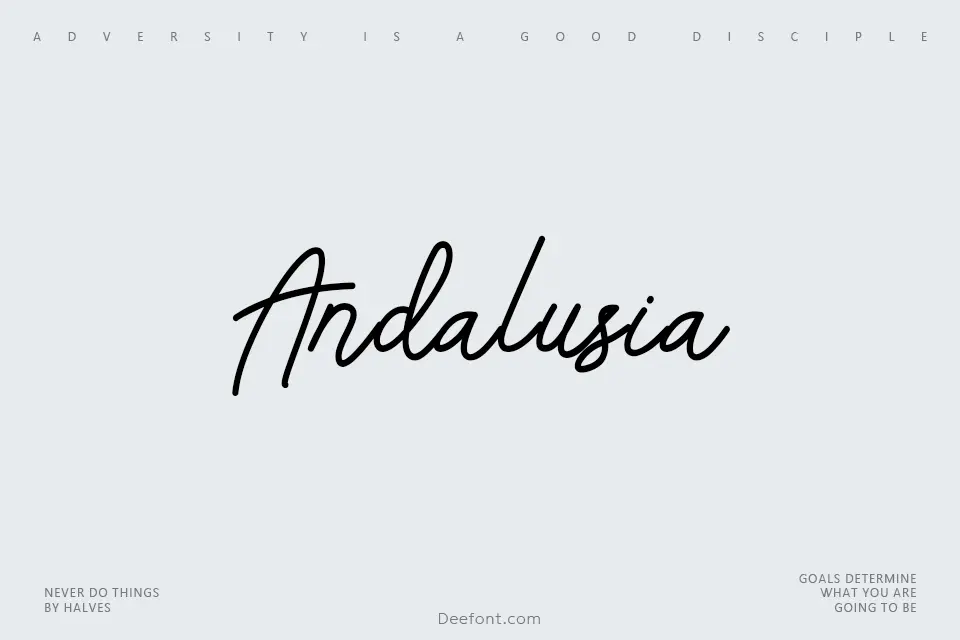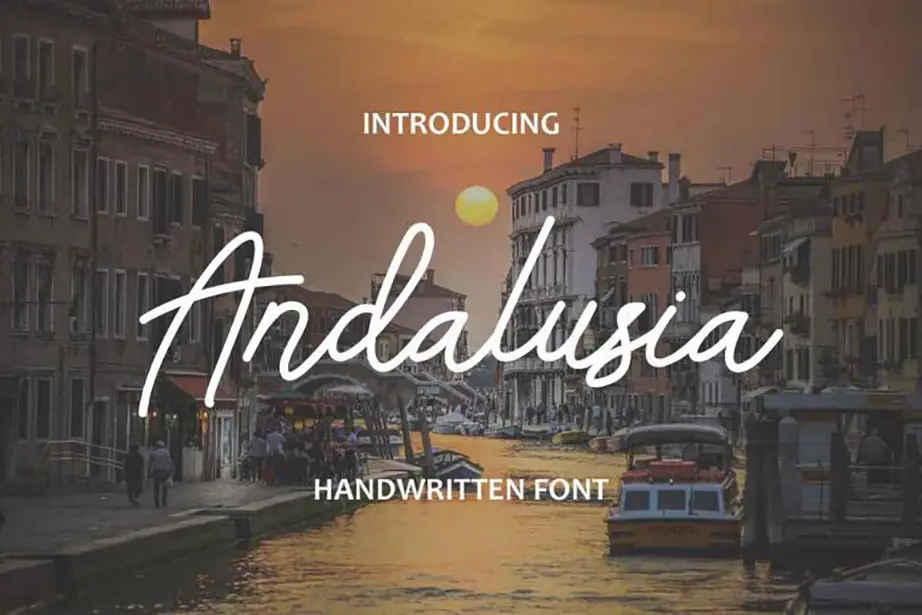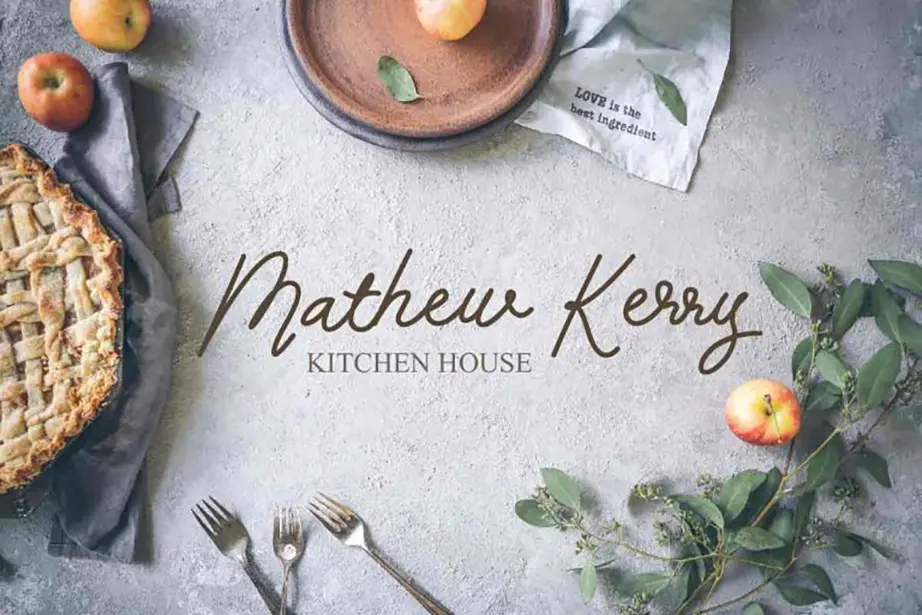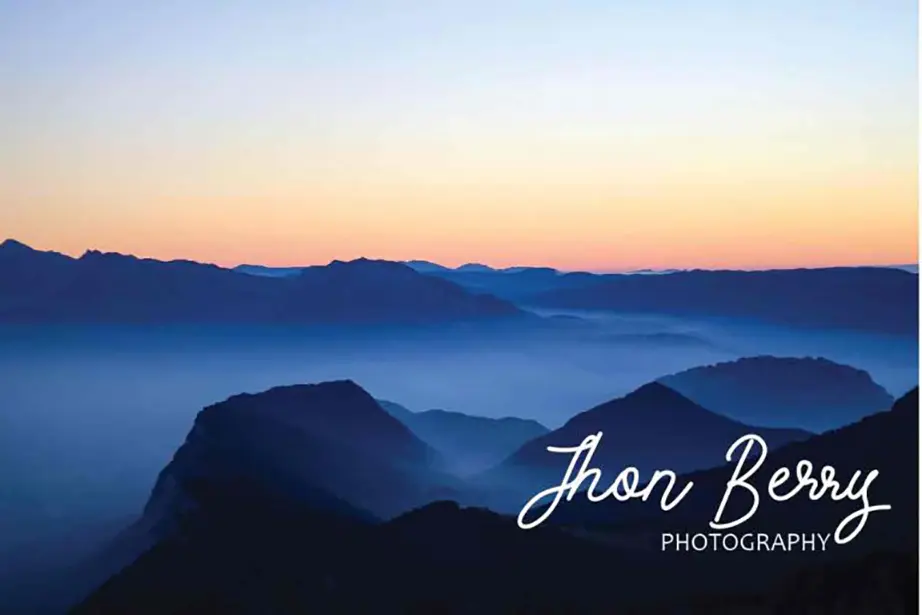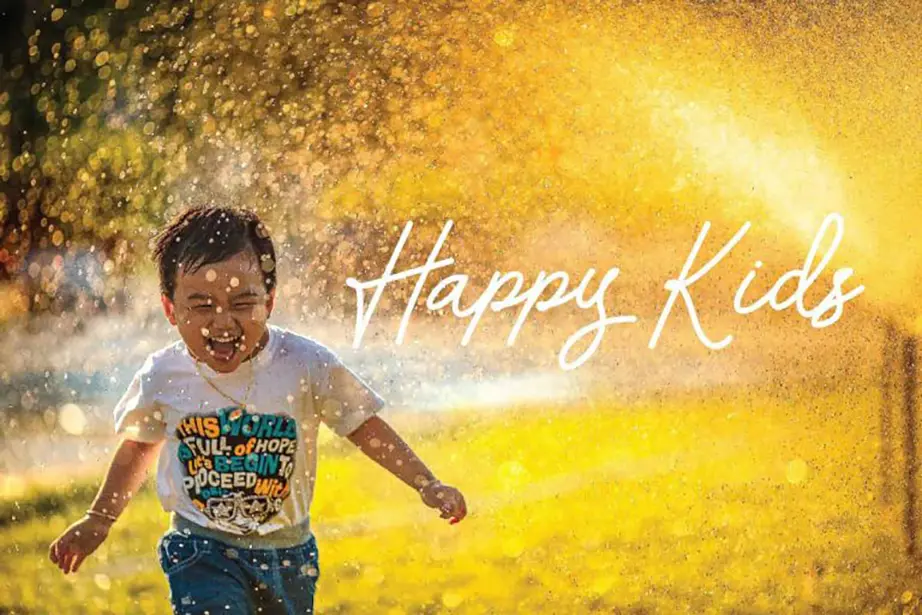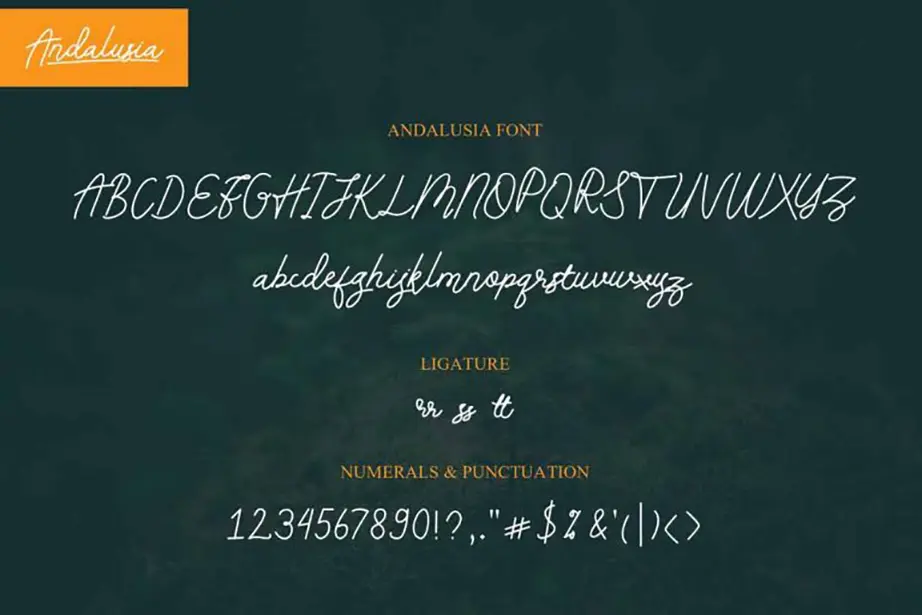
Andalusia Font
Andalusia is an elegant handwritten script font designed for modern creative projects. This stylish typeface features natural, flowing strokes with a sophisticated signature-style aesthetic, making it perfect for photography, branding, logos, invitations, social media posts, and wedding designs. The font combines clean lines with authentic handcrafted charm, offering a fashionable and versatile solution for designers seeking to add elegance and personality to their typography. With its monoline character and inky flow, Andalusia works exceptionally well for product packaging, stationery, headers, and any project requiring a handwriting aesthetic touch.